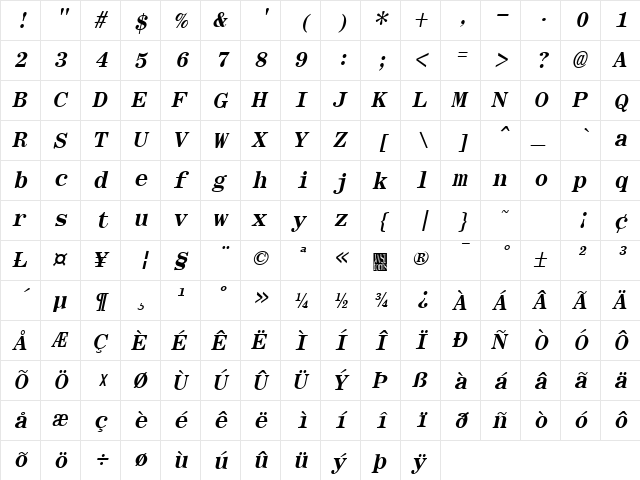
RomanFixedWidth Bold Italic Font Preview
RomanFixedWidth Bold Italic
Design Context for RomanFixedWidth Typeface
RomanFixedWidth takes a measured approach to typography — its balanced proportions and neutral character make it a reliable workhorse for both digital and print work. The slanted form adds forward momentum and visual energy. Its bold stroke weight gives it real presence on the page.